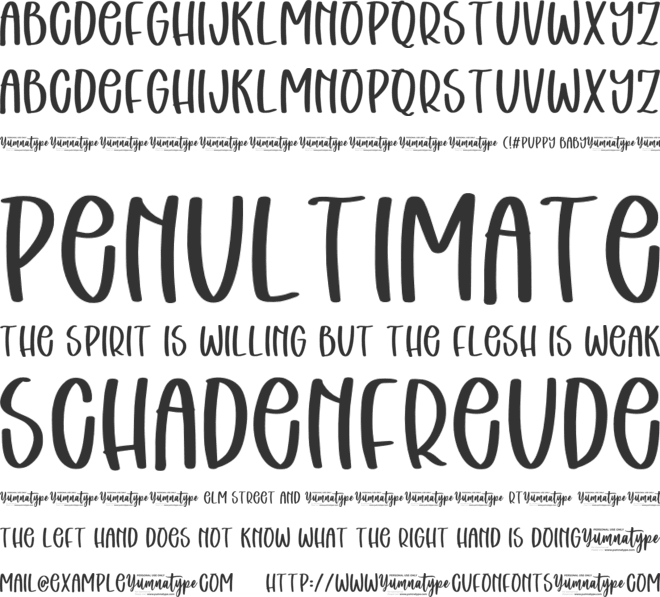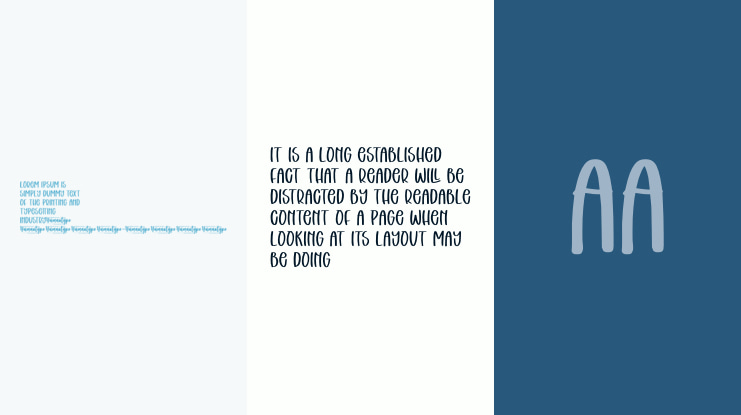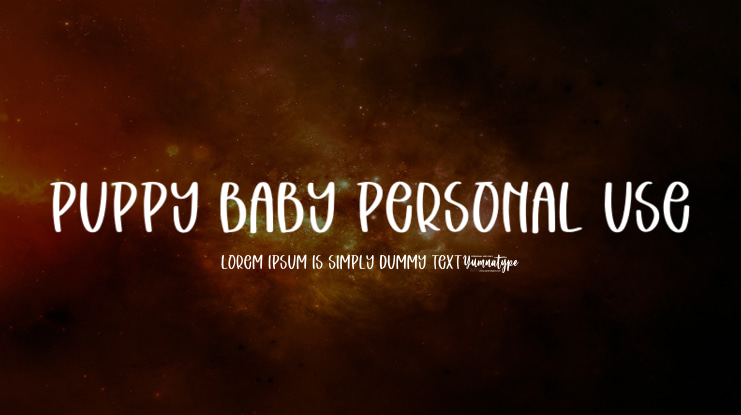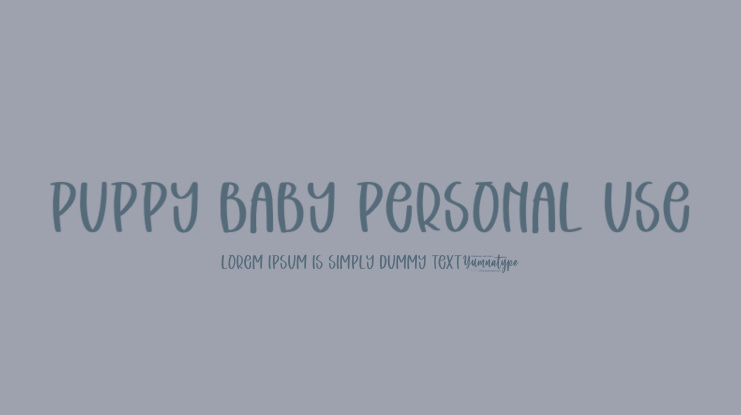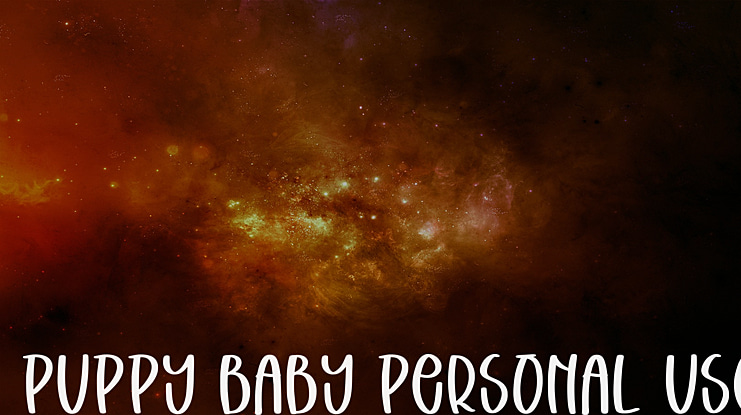
Puppy Baby is a elegant handwritten font. Made for any professional project branding. It is the best for logos,branding and quotes. Every letter has a unique and beautiful touch.